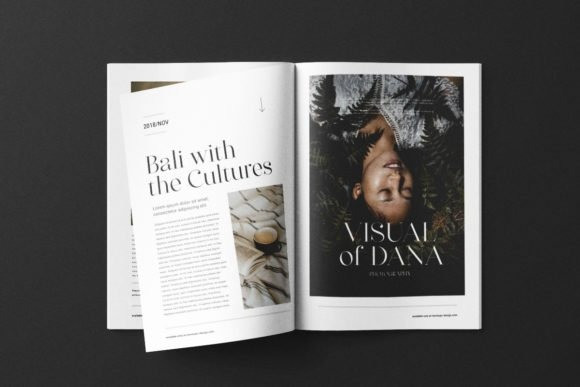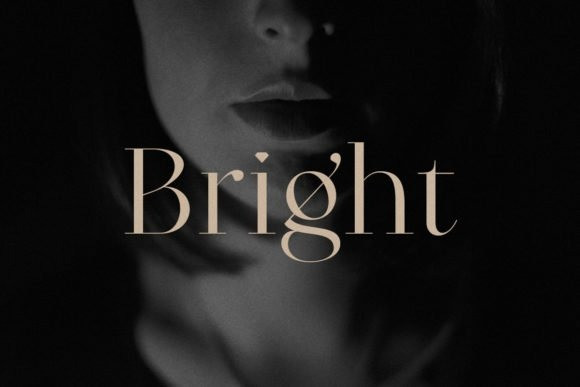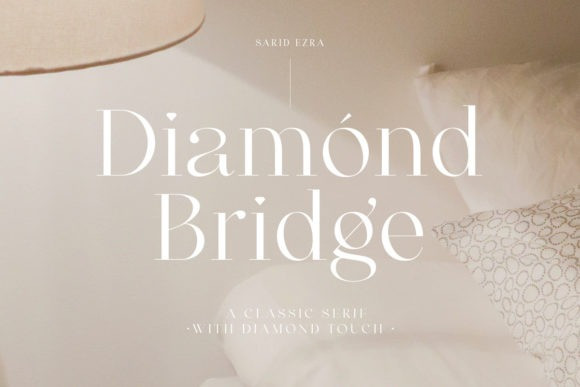
Diamond Bridge Serif Font
Diamond Bridge is a stylish and authentic serif font. It will elevate a wide range of crafting ideas, from cards, to branding, labels and much more.